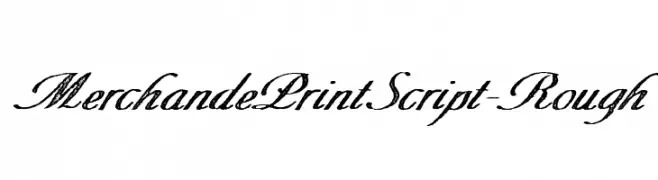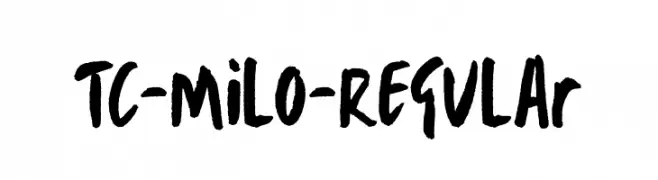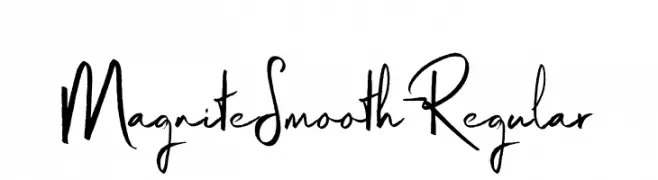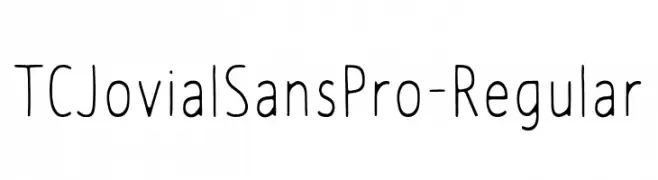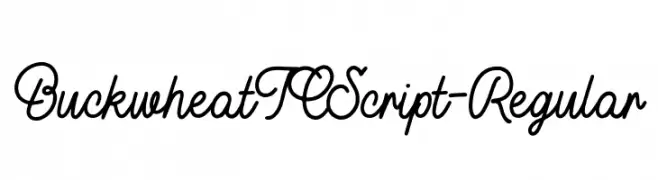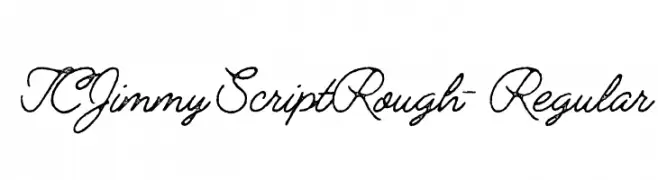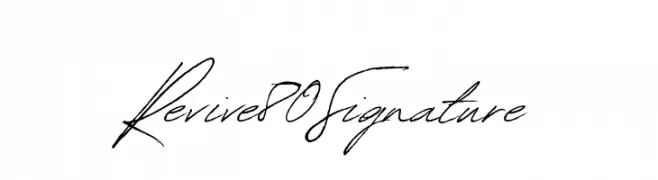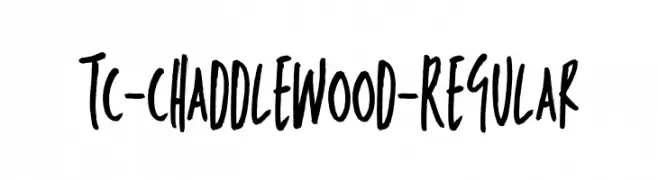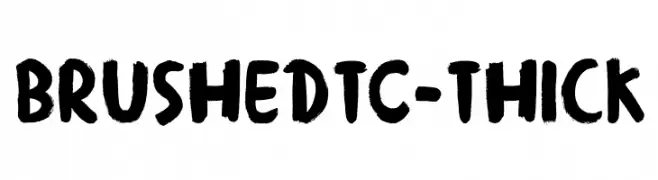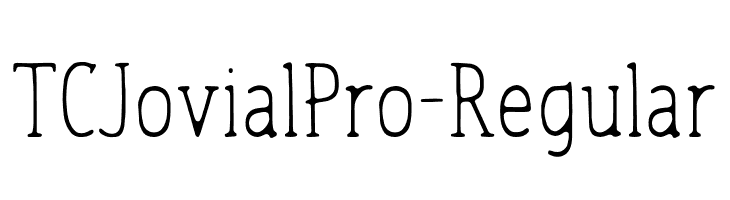
A vintage, textured script font with elegant, flowing curves and a distressed appearance.
A bold, hand-drawn font with an energetic and playful style.
A lively, expressive handwritten font with fluid and dynamic strokes.
A playful, handwritten-style font with consistent stroke width and modern appeal.
A playful and elegant script font with fluid, connected letterforms.
A rough, textured script font with a handwritten feel.
A dynamic and fluid handwritten script with elegant, flowing connections and varied stroke weights.
A playful, hand-drawn font with a whimsical and informal style.
A playful, handwritten font with tall, narrow letters and dynamic strokes.
A bold, brush-stroke style font with a dynamic and artistic appearance.